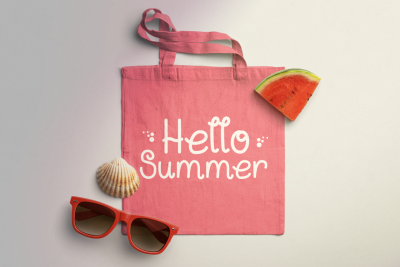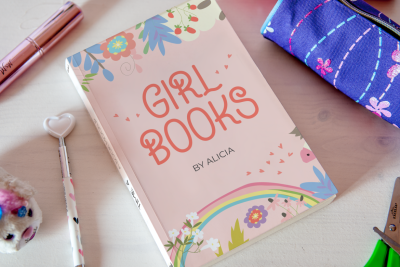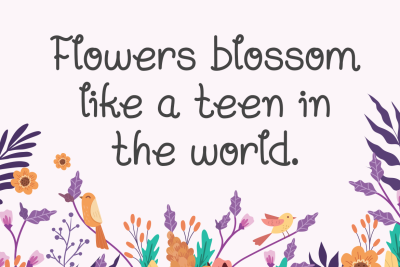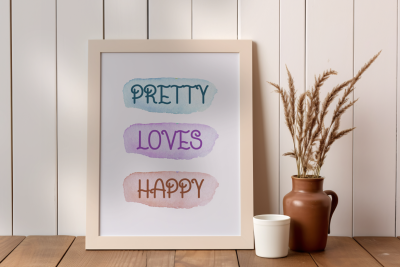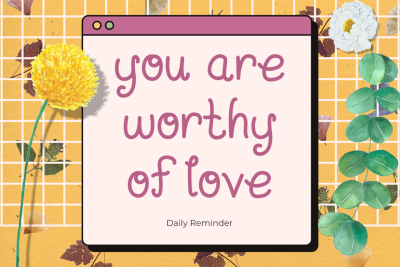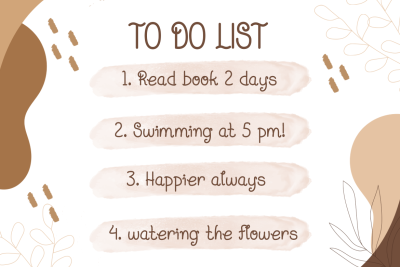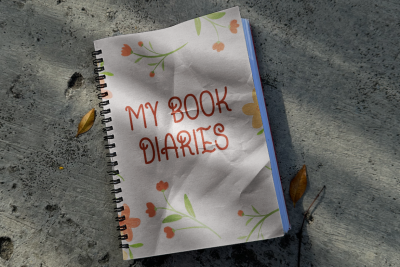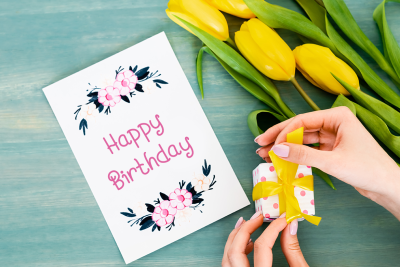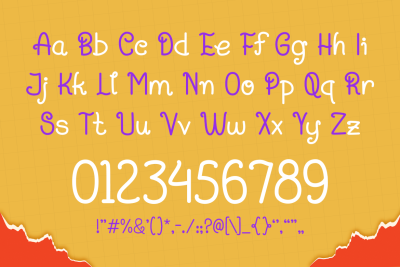
Handwriting Font Gemulai is a charming and elegant typeface designed to mimic the fluid, natural flow of handwritten letters. To begin with, its rounded, smooth curves and playful strokes give the font a friendly and approachable feel, making it the perfect choice for projects that require warmth and personality. Moreover, the subtle calligraphic nuances of Gemulai convey creativity, while its clean structure ensures readability. Whether you are creating headlines, branding, or everyday designs, Gemulai brings a fresh and lively touch that stands out in the digital space. This font is a beautiful representation of free-flowing handwriting, balancing modern simplicity and artistic flair.
The name “Gemulai,” which signifies graceful movements, perfectly reflects the design philosophy behind the font. As a result, every letter is carefully crafted with a sense of rhythm and harmony, resembling the gentle sweep of a brush or pen. Furthermore, the result is a typeface that feels personal and authentic, yet polished and professional. In particular, its soft edges and rounded shapes give off a calming vibe, making it ideal for conveying a friendly tone.
In addition to its beauty, Gemulai is versatile, combining style and functionality in a seamless manner. It can effortlessly adapt to different design needs, making it a perfect addition to any creative toolkit. From eye-catching titles to subtle design elements, this font brings elegance and life to every project.
Handwriting Font Gemulai Suitable For
Handwriting Font Gemulai is an excellent choice for designers, creative businesses, and content creators looking to add a personal and artistic touch to their work. Specifically, its friendly and relaxed look makes it particularly suited for:
- Branding and Logo Design
Small businesses, craft shops, and lifestyle brands will benefit from Gemulai’s approachable, handwritten style. In particular, it adds a human touch to logos, ensuring a memorable and charming visual identity. - Social Media Content
Bloggers, influencers, and digital marketers can use this font for eye-catching captions, Instagram posts, or Pinterest graphics. Additionally, Gemulai’s soft and warm character works well for audiences seeking aesthetic visuals and personal connection. - Creative Invitations and Stationery
Whether for wedding invitations, birthday cards, or baby announcements, Gemulai’s graceful strokes evoke a sense of intimacy and warmth. Thus, it is perfect for personal projects that require an elegant yet playful design. - Printed Merchandise
Designers creating t-shirts, mugs, posters, or packaging will appreciate how the font adds a creative and friendly vibe to products. Not only does it suit minimalist designs, but it also works well in colorful ones. - Children’s Books and Educational Materials
The font’s fun, approachable letters make it ideal for materials aimed at younger audiences. For instance, teachers, authors, and publishers can use Gemulai to create engaging and visually appealing books or worksheets. - Lifestyle and DIY Content
Bloggers and content creators sharing recipes, crafts, or DIY tutorials will find Gemulai to be a great fit. In fact, its handwritten nature complements handmade, homegrown, and cozy content themes.
Overall, Handwriting Font Gemulai is a versatile and charming typeface that appeals to anyone looking to incorporate warmth, creativity, and a personal touch into their designs. From professionals to hobbyists alike, this font is sure to inspire!